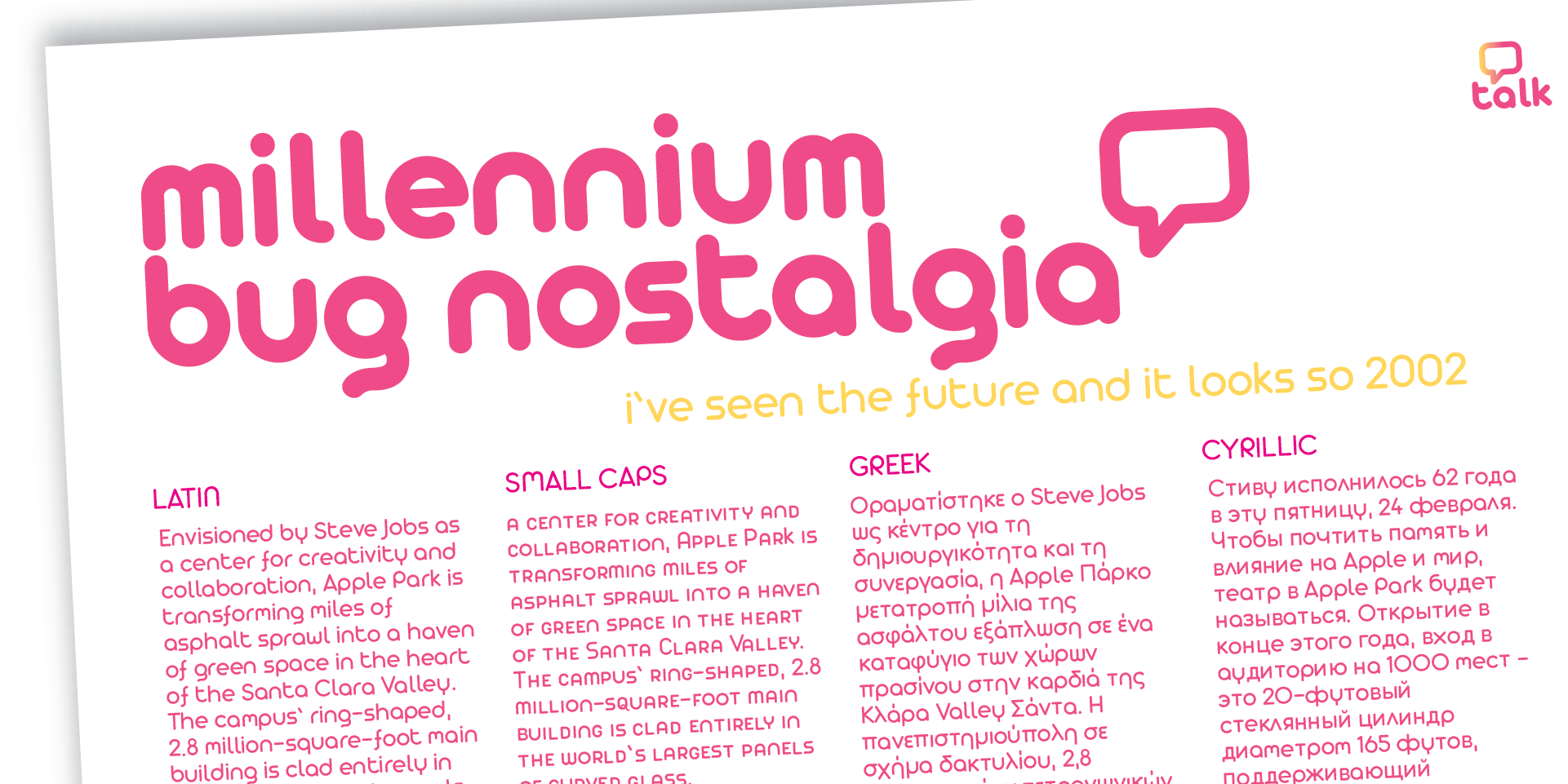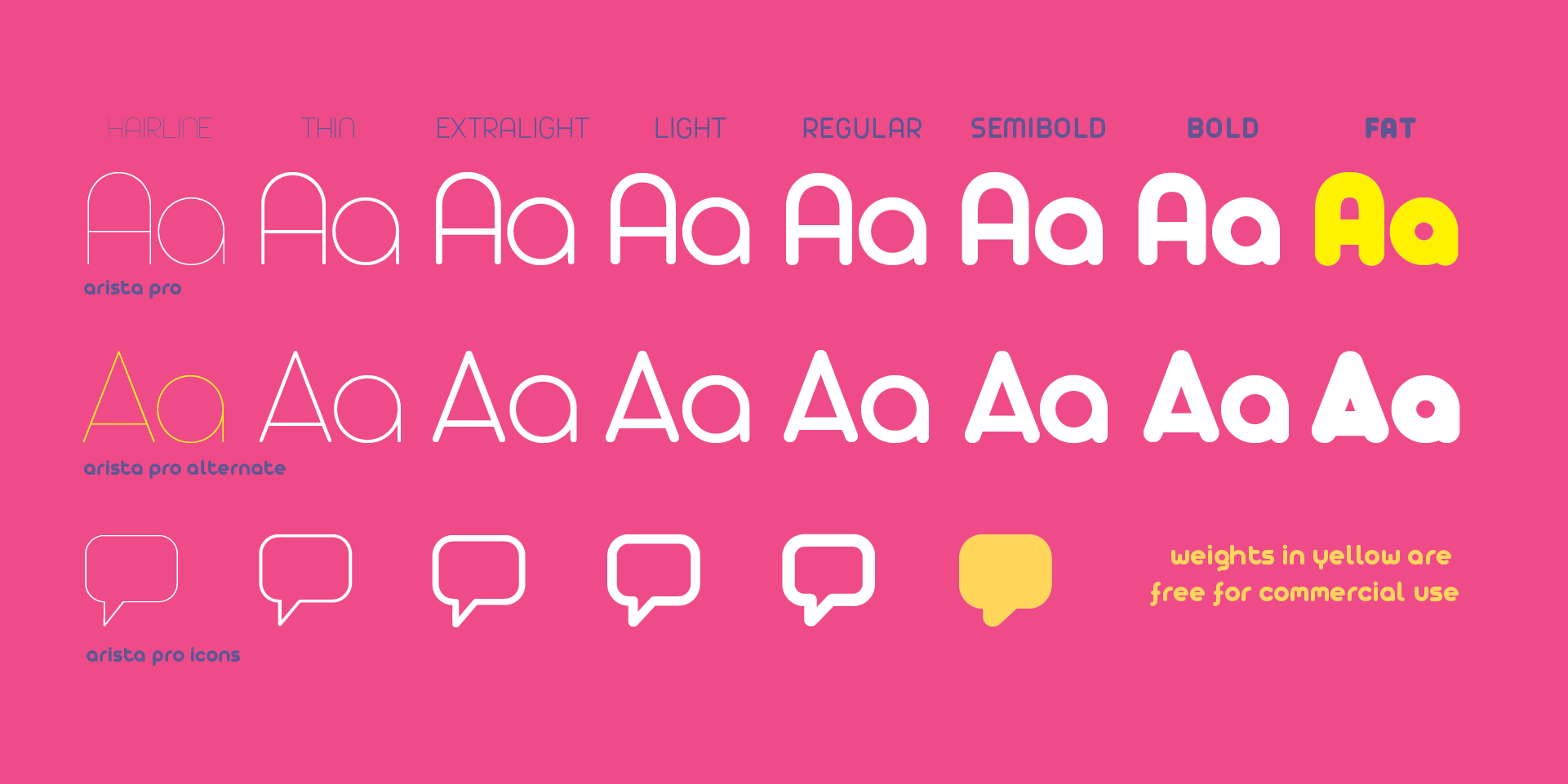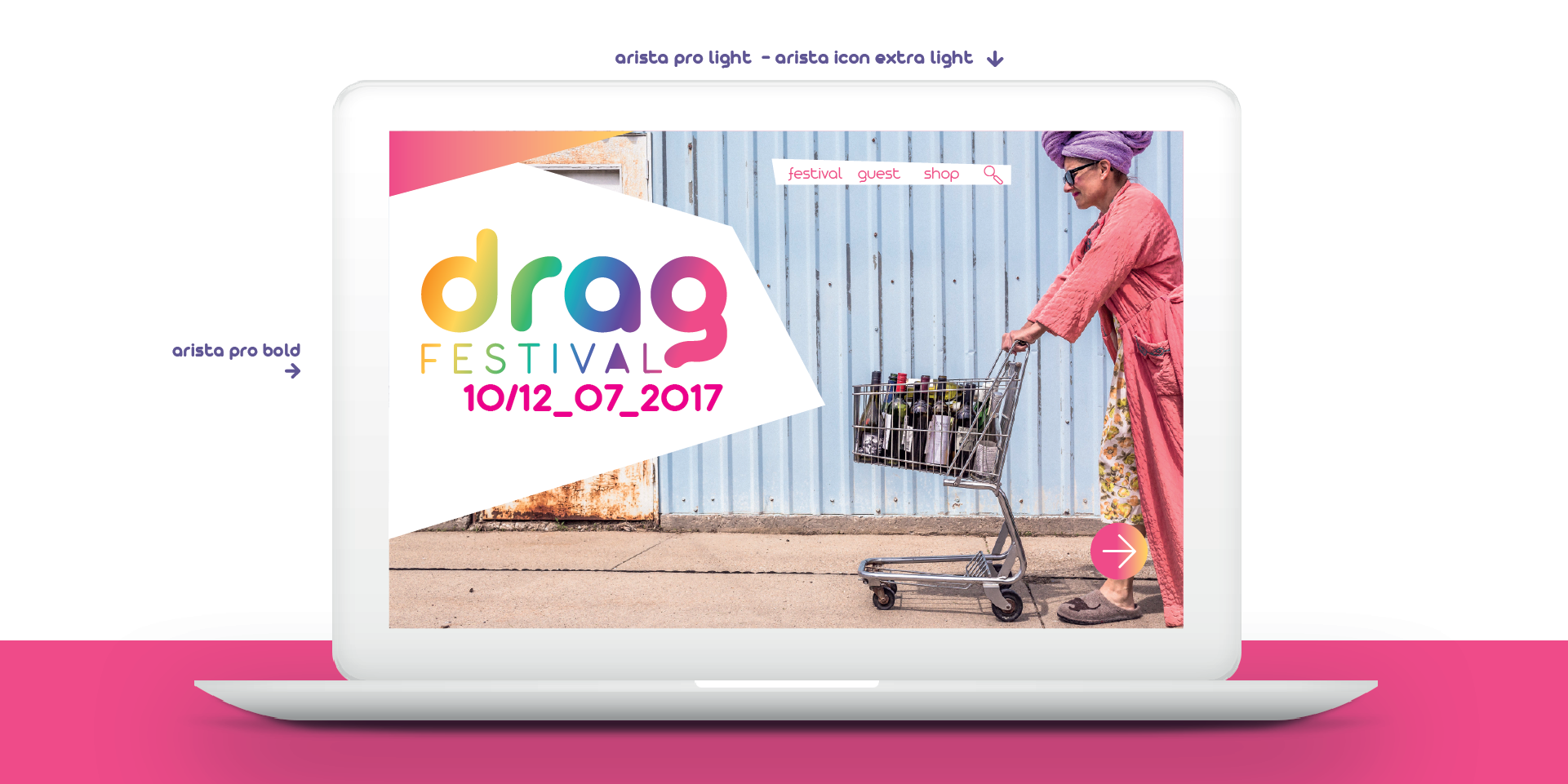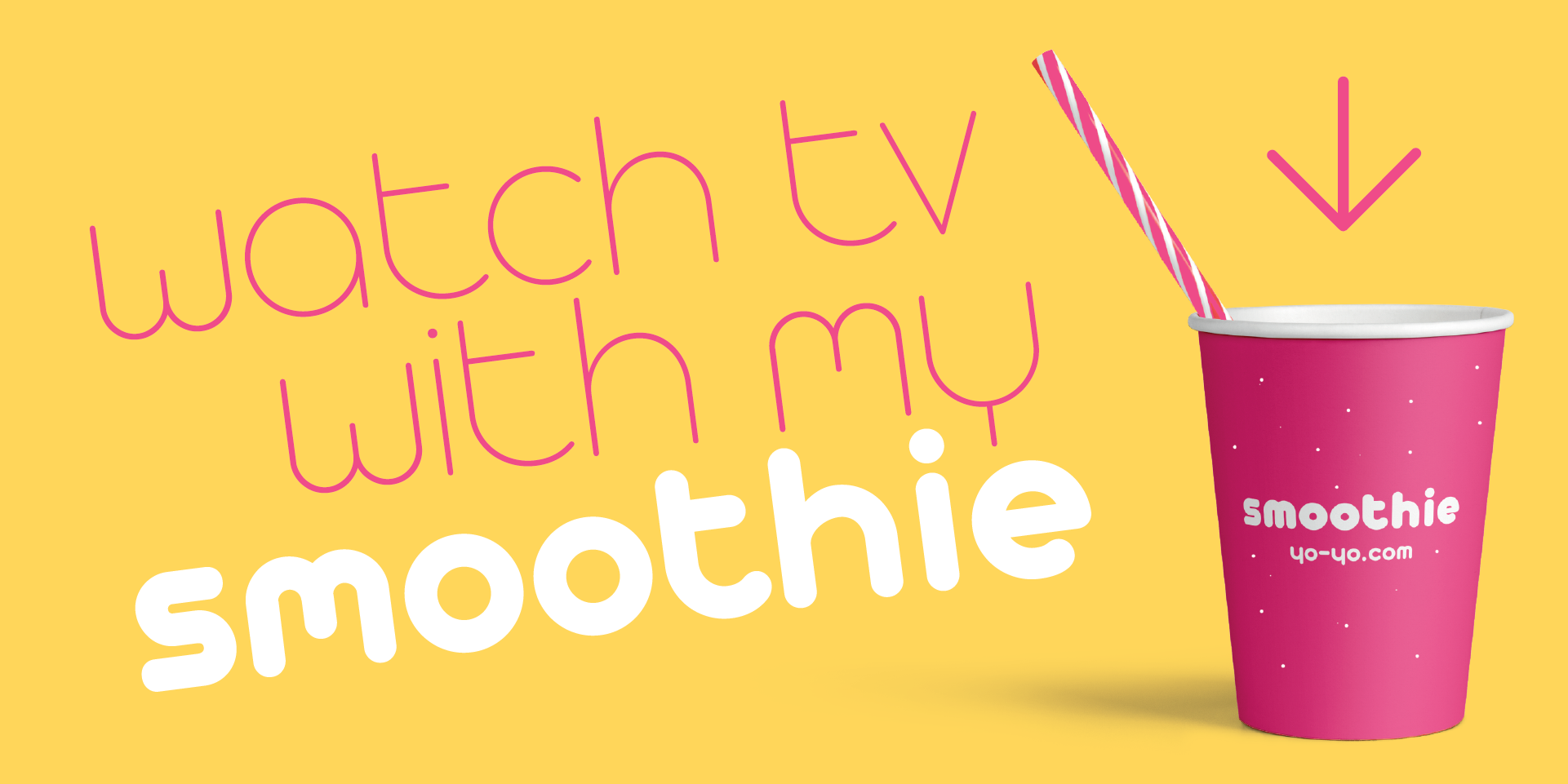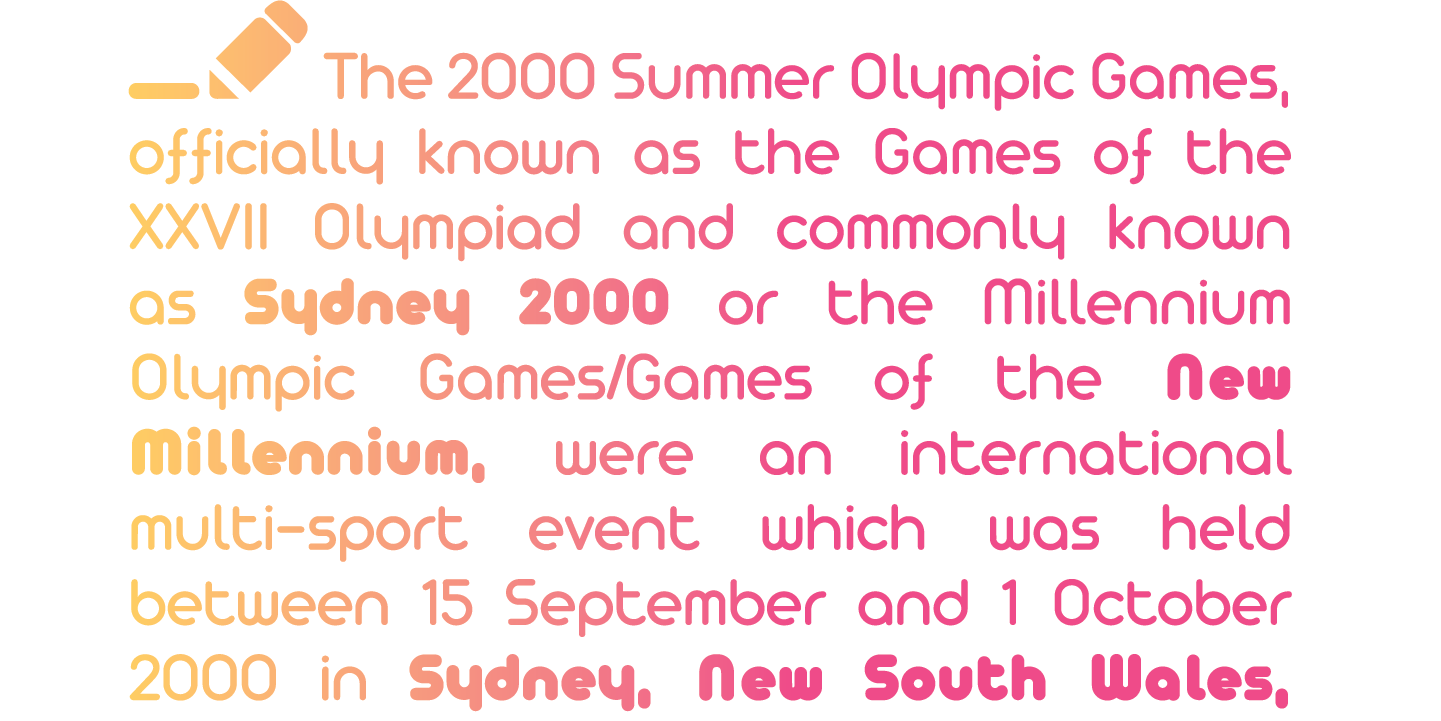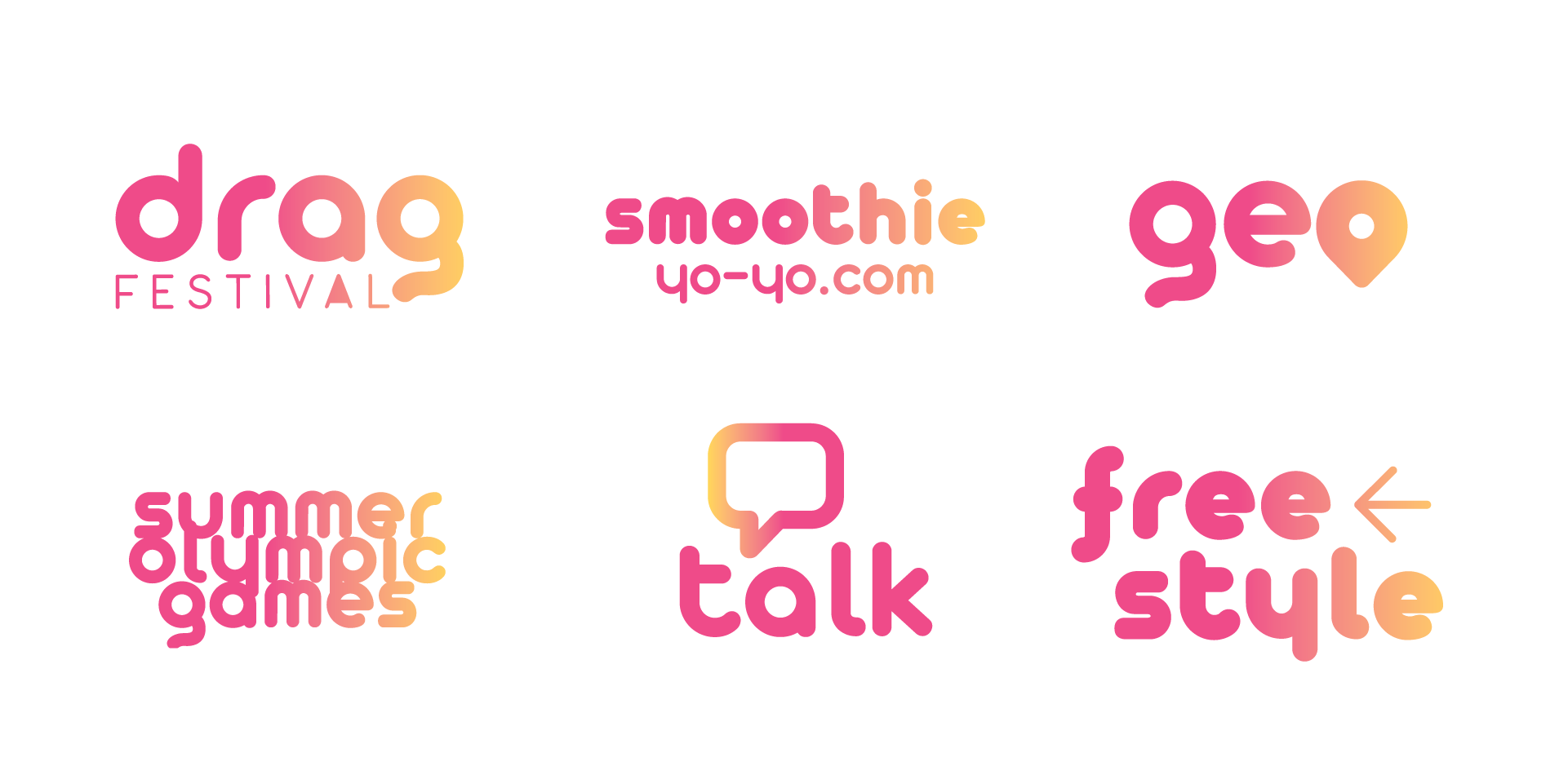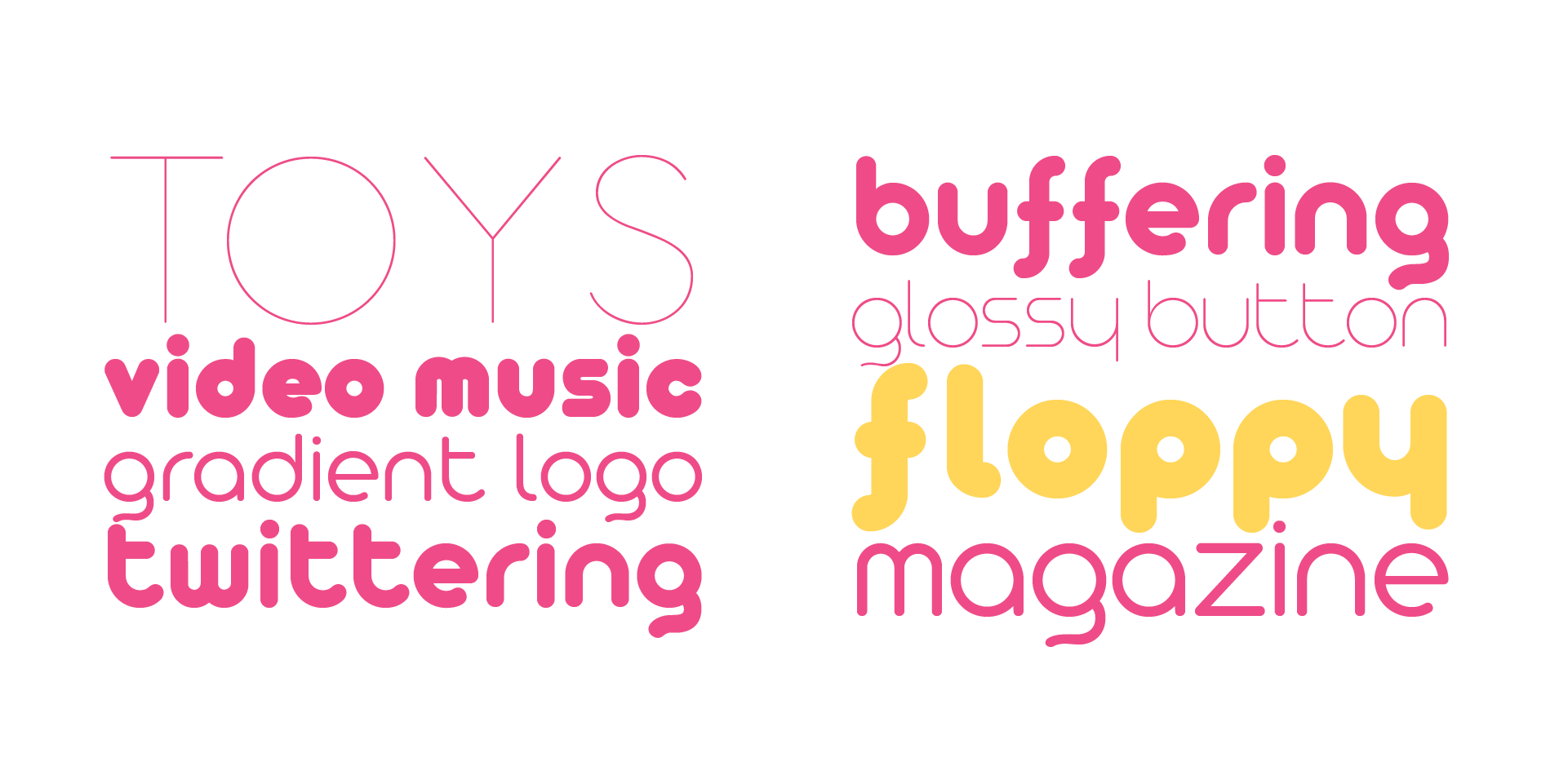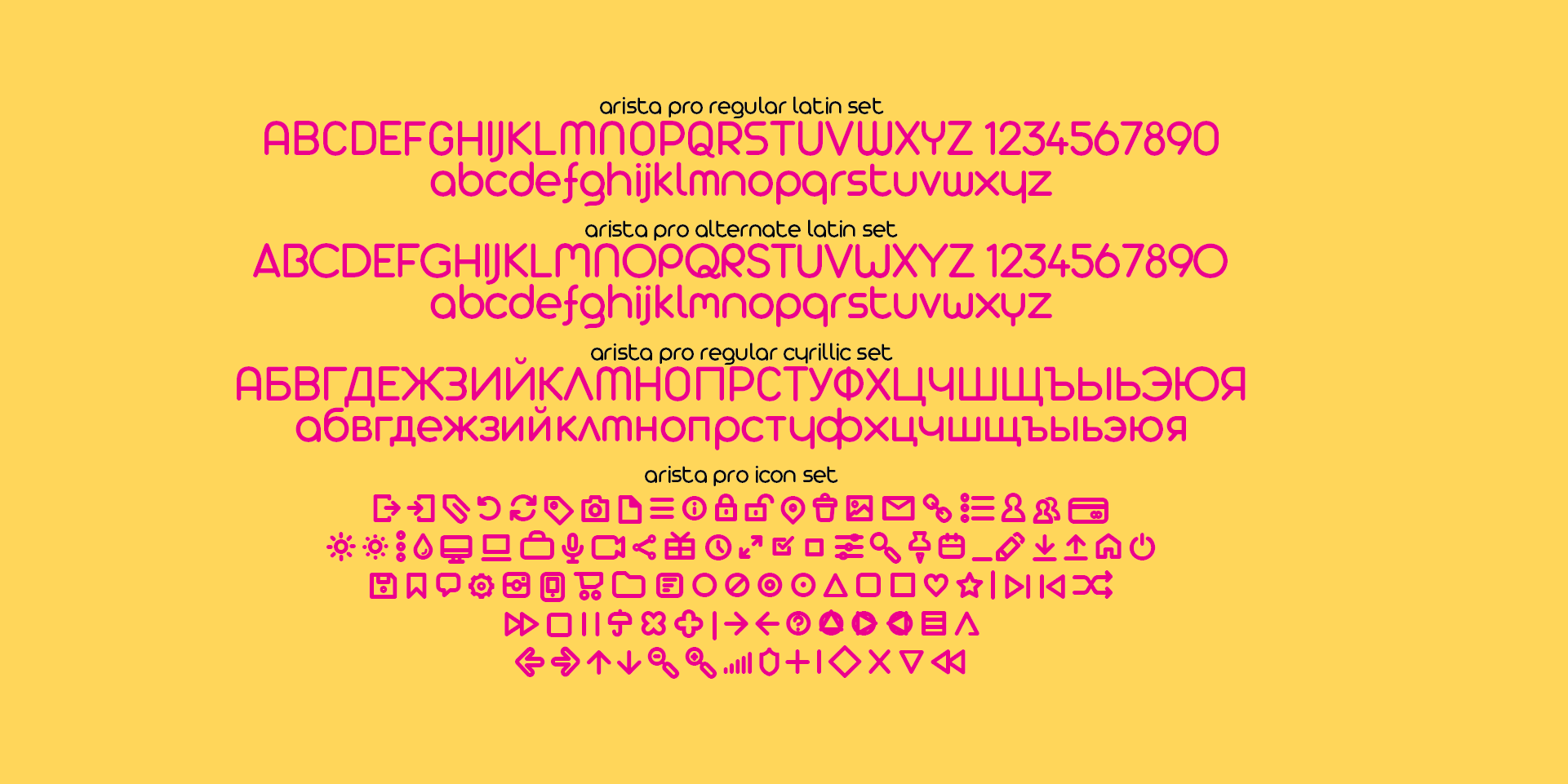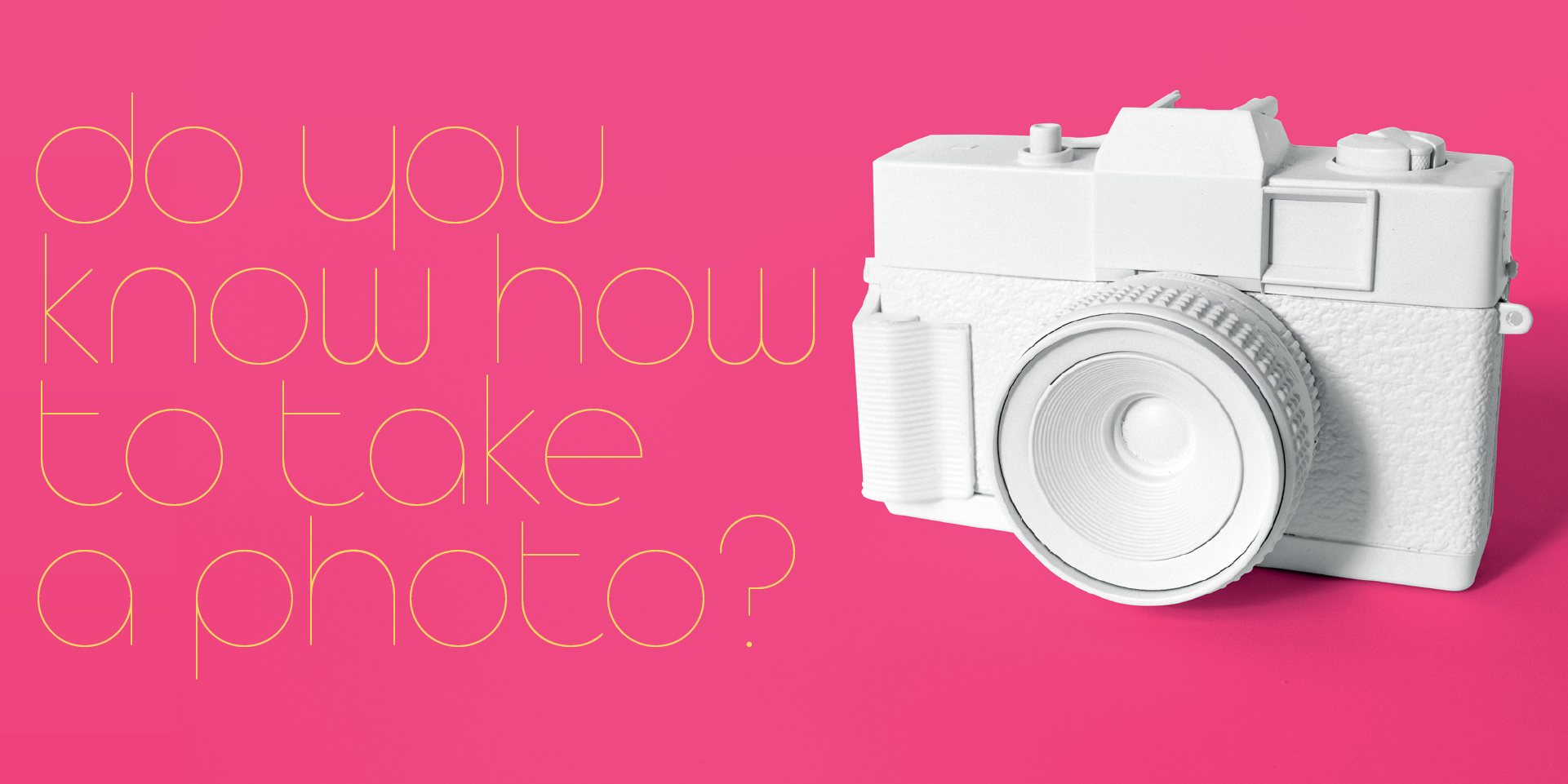
Designed by Francesco Canovaro with Cosimo Lorenzo Pancini and Andrea Tartarelli Version 0.3 / released in 1999
Arista Pro is the definitive version of the successful Arista typeface, designed by Francesco Canovaro, first released in 2007 as Arista Z and then reissued as Arista 2.0 in 2010. The pro version of Arista features the geometric and soft approach of the original typeface but comes in a full range of weights and two alternate versions (Arista Pro Regular and Arista Pro alternate version). The typeface has been expanded with the inclusion of Greek and Cyrillic alphabets as well as an extended range of latin characters. A companion icon typeface, Arista Pro Icon, has been developed,  Show all
Small Capitals
Oldstyle Figures